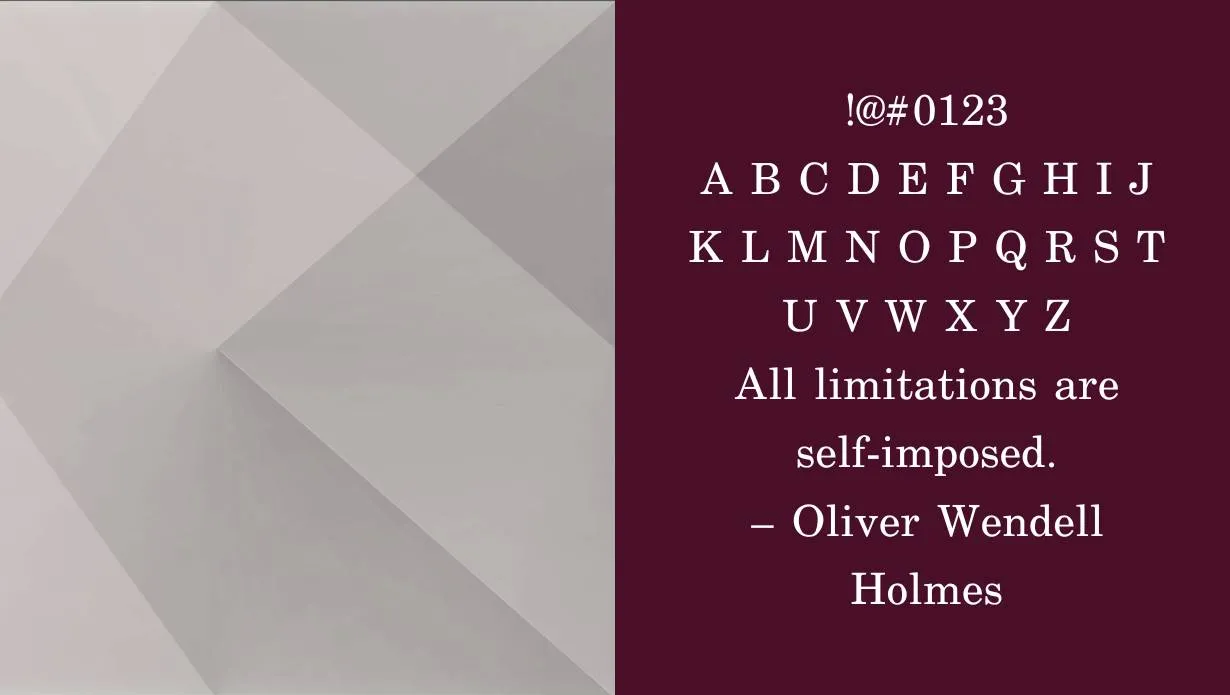
Schoolbook Font is a Serif typeface designed by very creative graphic and font designers named Elena Tzaregorodtseva and Manvel Shmavonyan, and it was released through a paratype foundry. The design was inspired by the old display typefaces.
It has a very modern look and feels, and it is very easy to read. The Font family includes six weights: light, regular, bold, italic, Bold Italic, Cond, and Cond Bold Regular.
Schoolbook Font Family
The Font was currently used by many major companies. The typeface is also included in the Adobe Creative Cloud Suite.